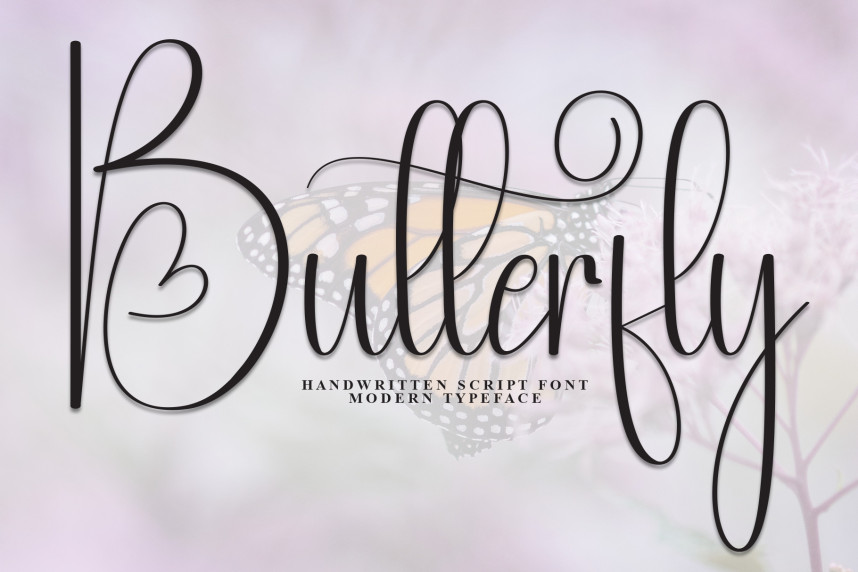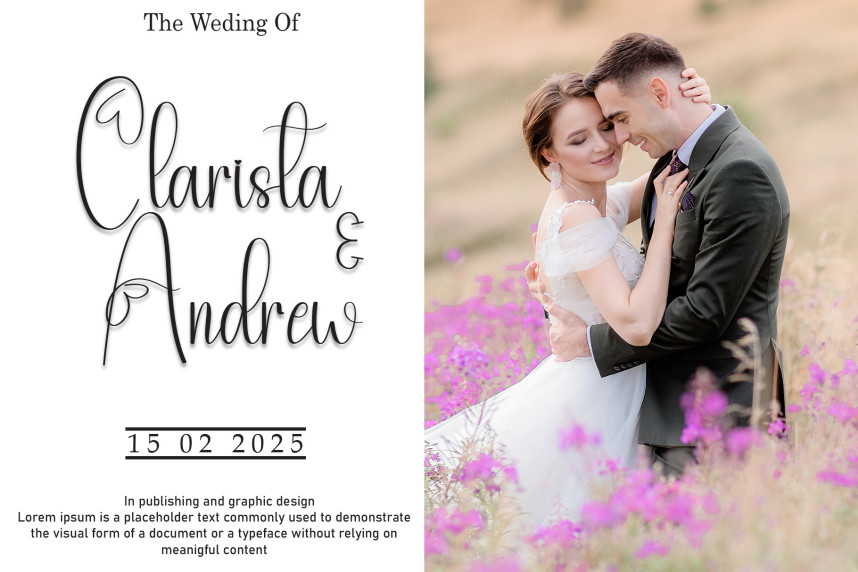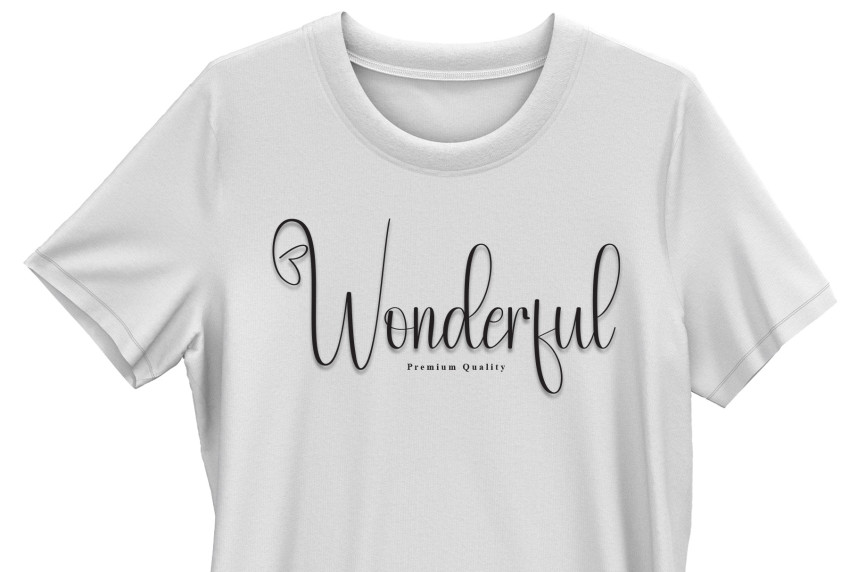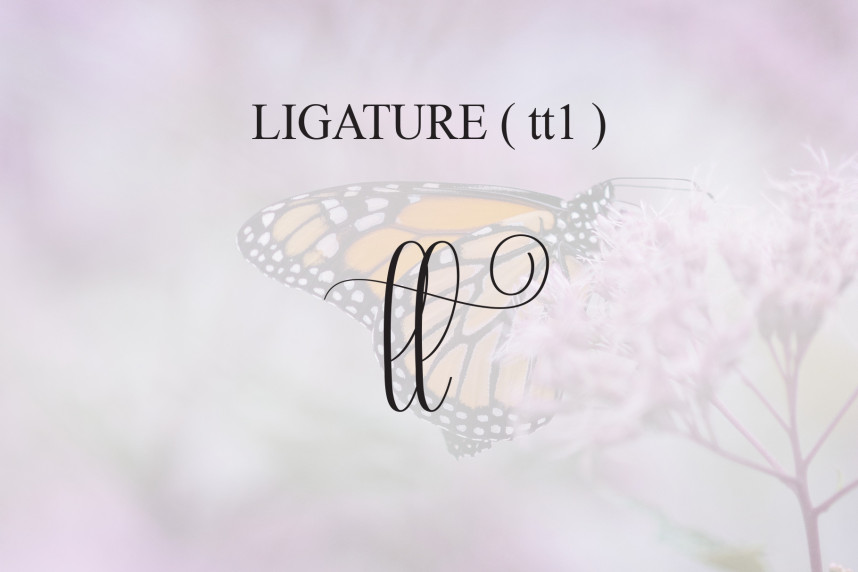
Butterfly Script Handwritten Font
Butterfly Script Handwritten Font – this is a sweet and friendly handwritten display font. Cute and fun, this font is ideal for writing wedding invitations, cards, or any other design that might need a playful touch!